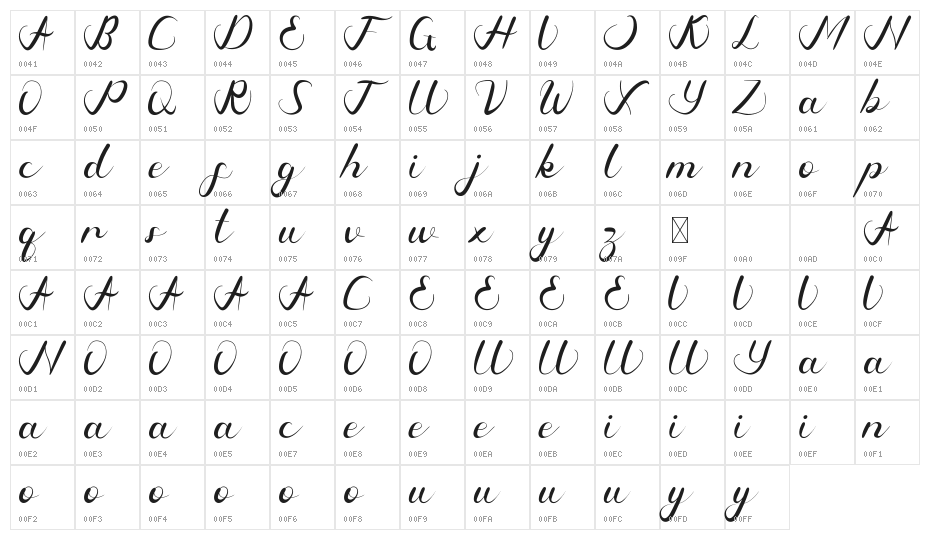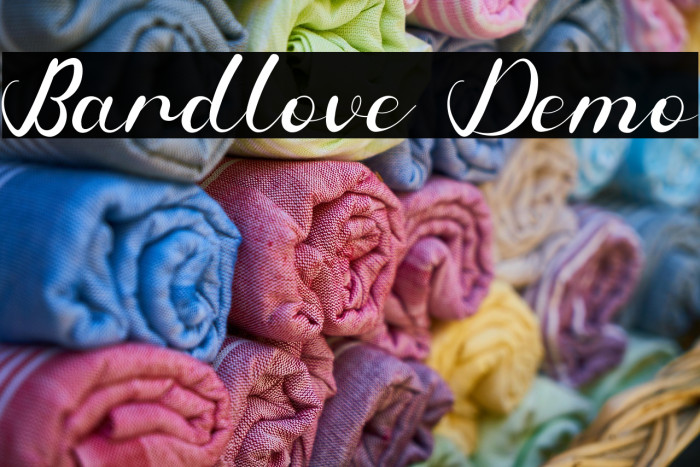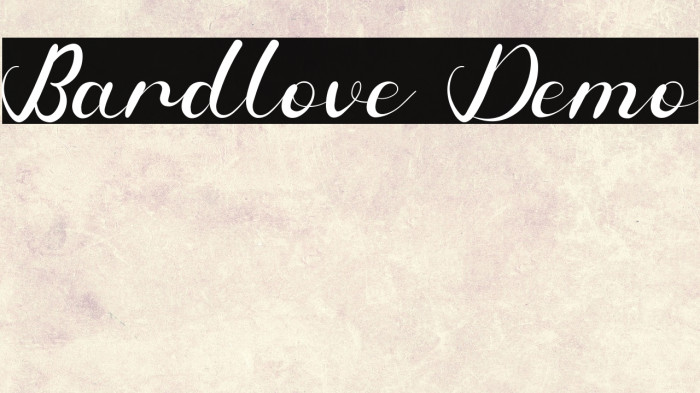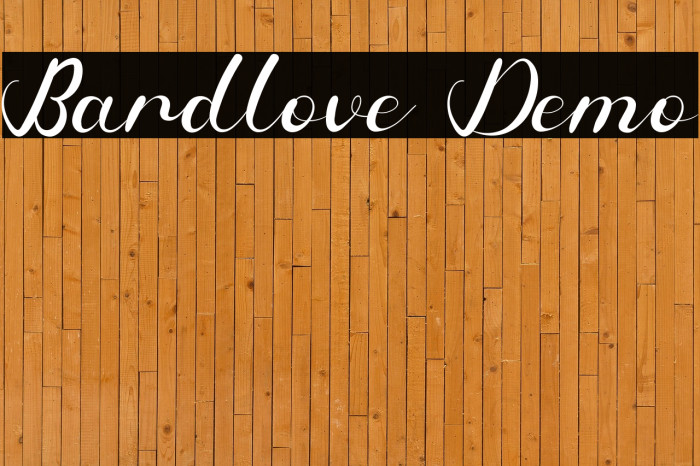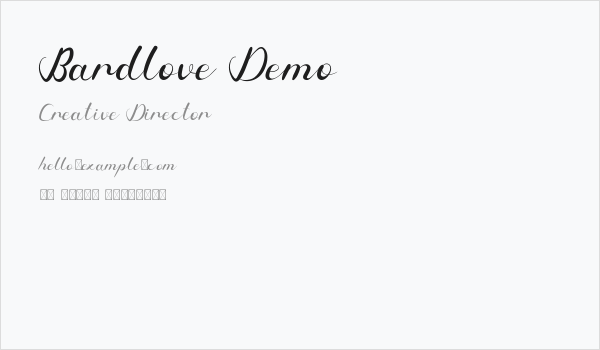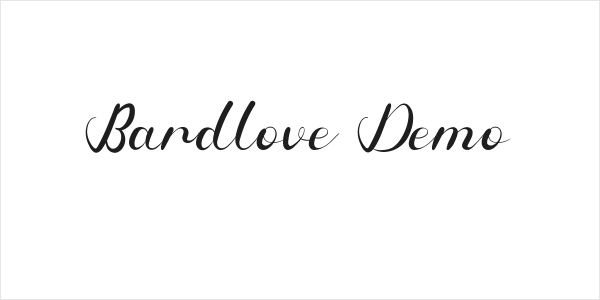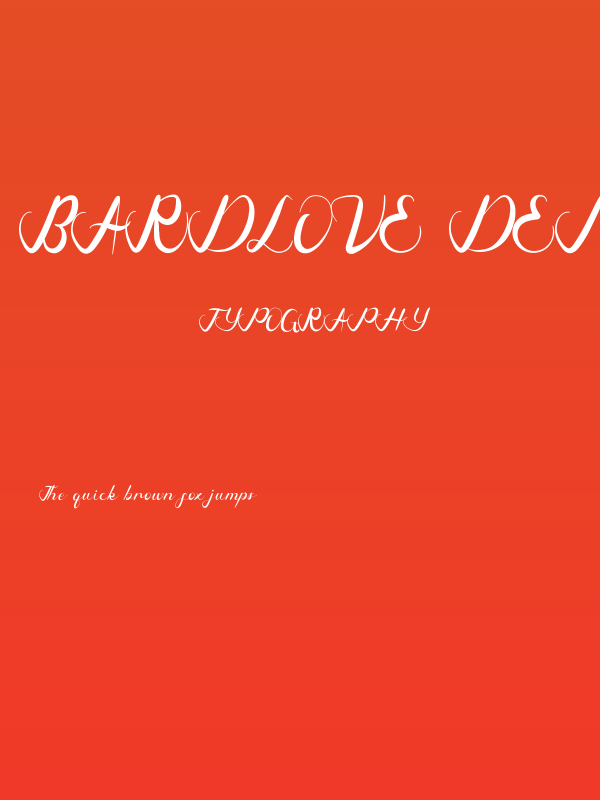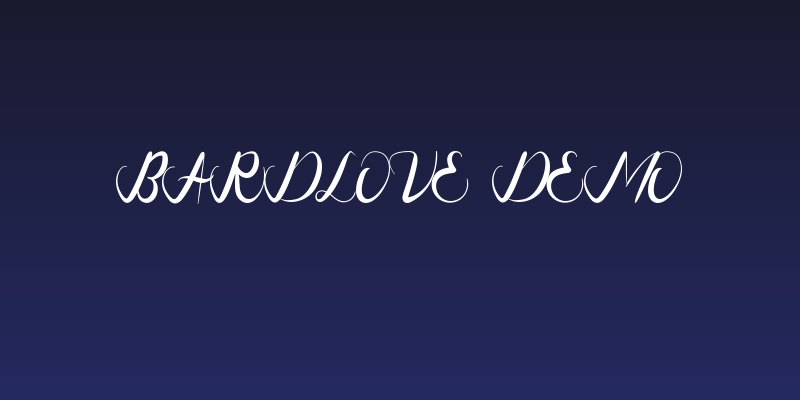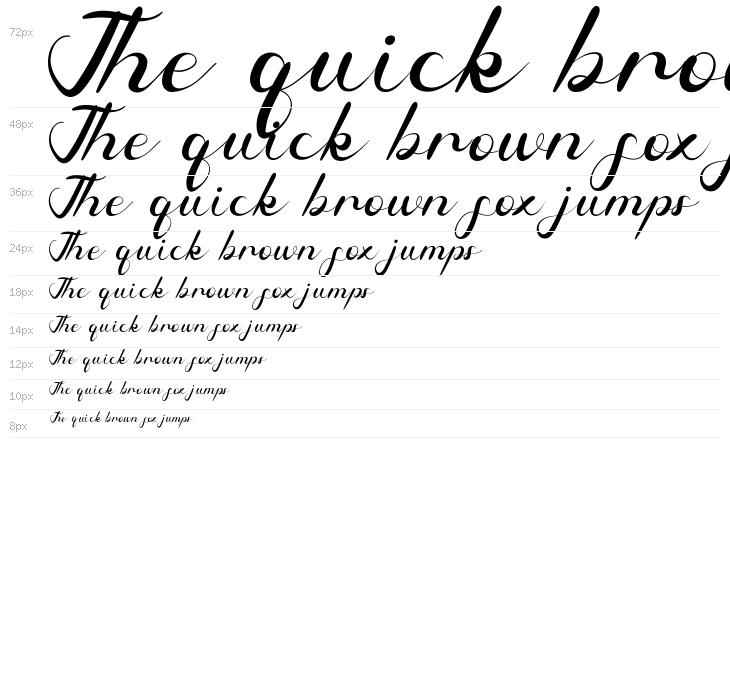
Bardlove Demo Font
Bardlove Demo Description
This elegant script font features flowing, interconnected letters that exude a sense of sophistication and grace. The uppercase letters are adorned with delicate flourishes, adding a touch of whimsy and charm. The lowercase letters maintain a consistent, smooth flow, enhancing readability while retaining the font's artistic flair. The numerals and special characters are designed to complement the overall style, ensuring a cohesive look across all text elements. This font is perfect for projects that require a personal, handwritten touch, such as invitations, greeting cards, and branding materials.
| Overall Style | Elegant, Decorative |
| Use Case | Headlines, Invitations, Branding |
| Proposed Projects | Ideal for wedding invitations, greeting cards, branding, and elegant stationery. |